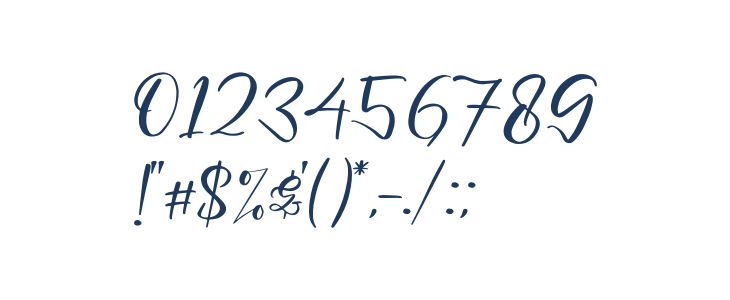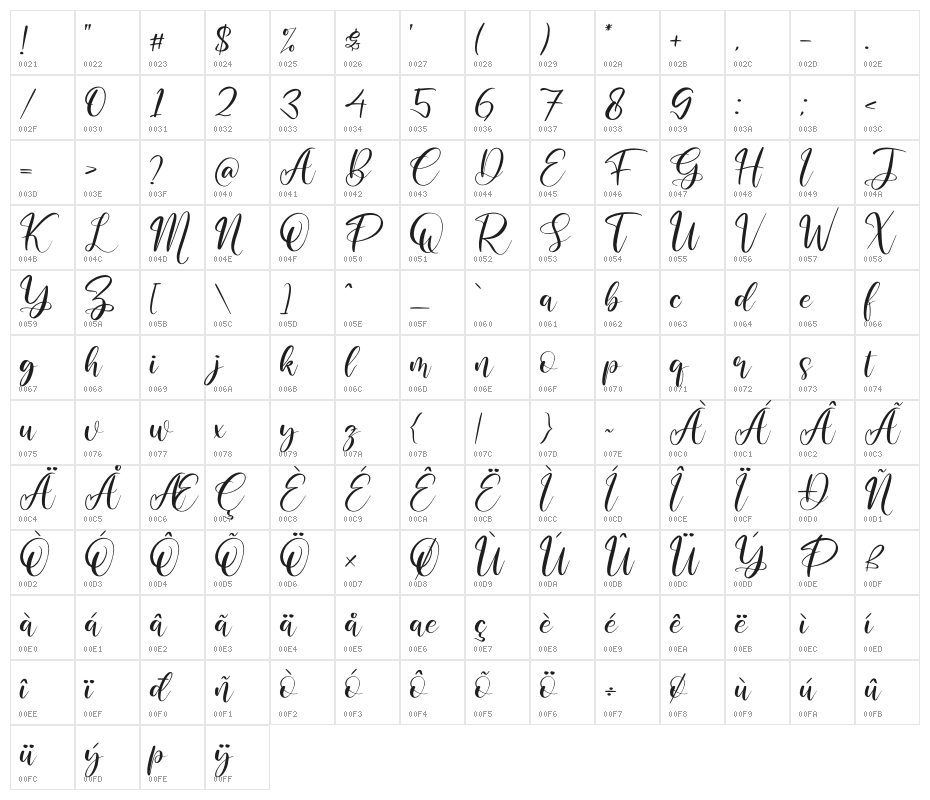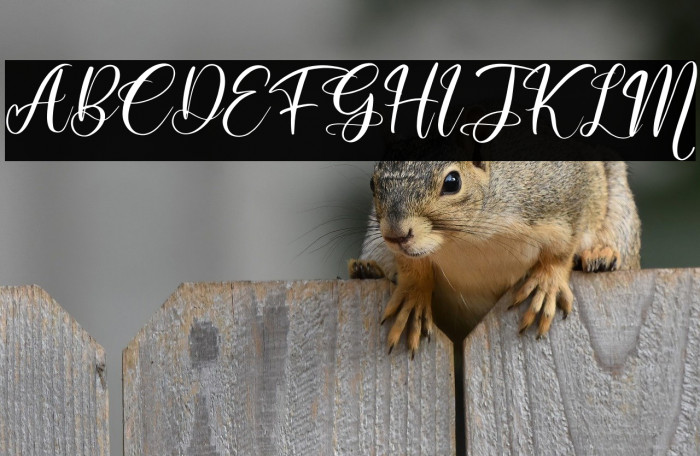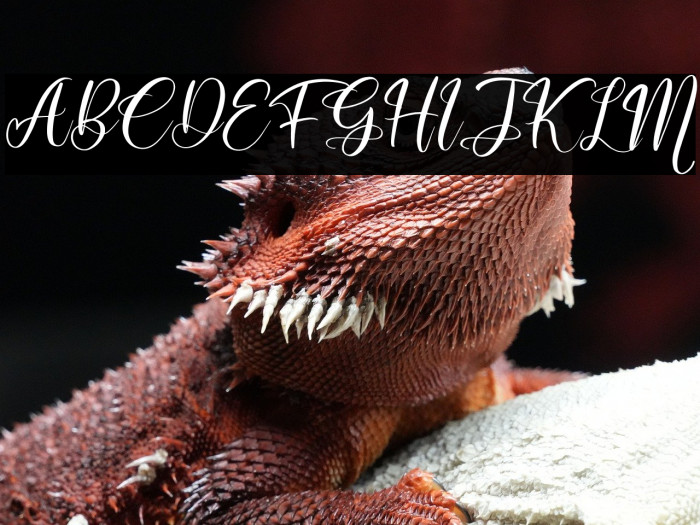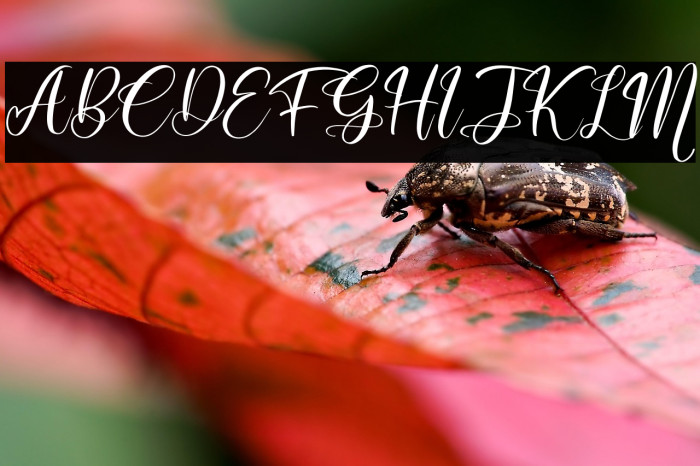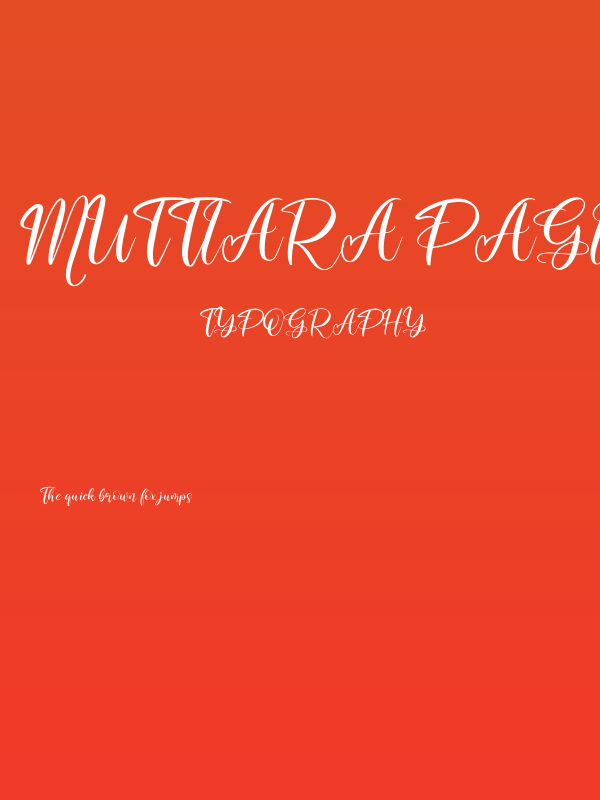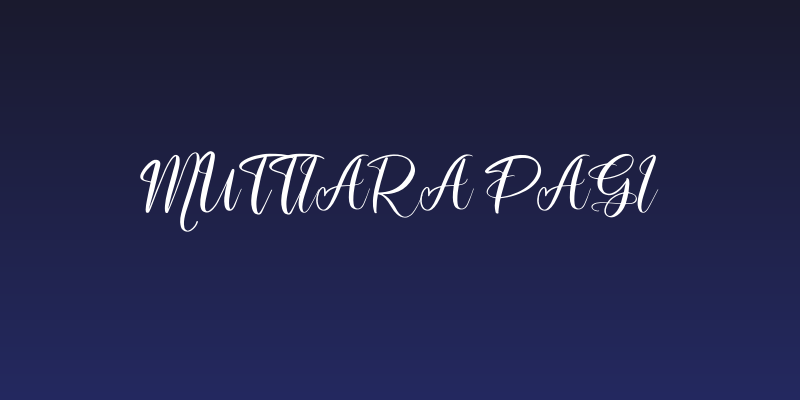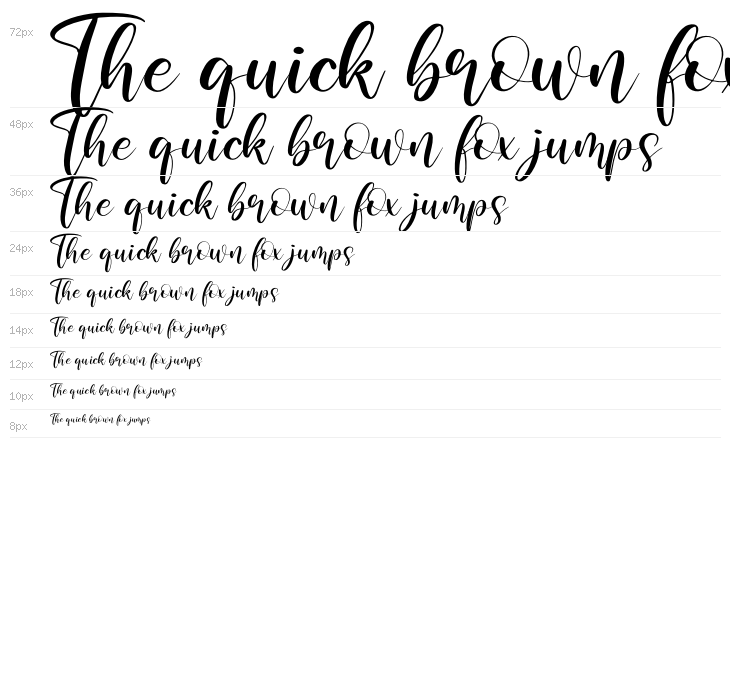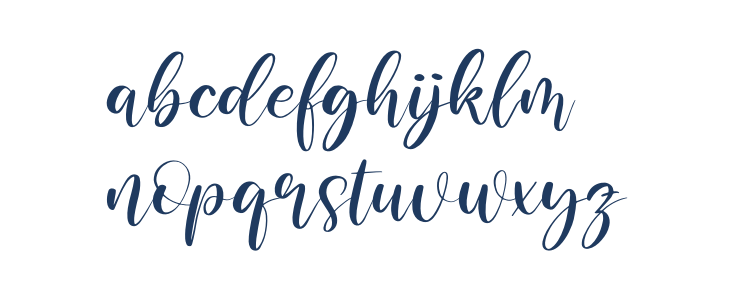
Muttiara Pagi Font
Muttiara Pagi Description
This elegant script font features flowing, interconnected letters with a calligraphic style. The uppercase letters are ornate, with sweeping curves and loops that give a sense of movement and grace. The lowercase letters maintain a consistent flow, enhancing readability while preserving the decorative nature of the script. Numbers and special characters are designed to match the overall aesthetic, with a playful yet sophisticated appearance. The font's strokes vary in thickness, providing a dynamic contrast that adds to its visual appeal. Ideal for projects that require a touch of elegance and sophistication.